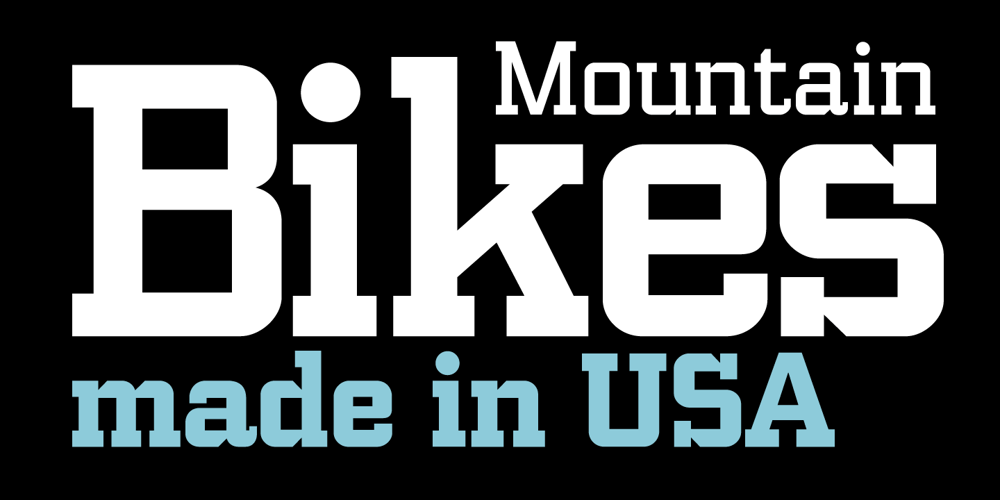
PF Synch Pro Font Family was designed by Panos Vassiliou and published by Parachute. PF Synch Pro contains 4 styles and family package options. An industrial strength slab-serif typeface which performs equally well with headlines as well as longer text. It differs from the stiff almost mechanical structure of other slabs, by introducing distinct letterforms in characters like ‘f’, ‘r’ and managing at the same time to combine effectively the typeface’s round parts with deep cuts and sharp inner corners, which add an interesting character to this otherwise contemporary series. PF Synch Pro consists of 4 fonts from black to regular. It is loaded with 3 special OpenType features and offers multilingual support for all European languages including Greek and Cyrillic.